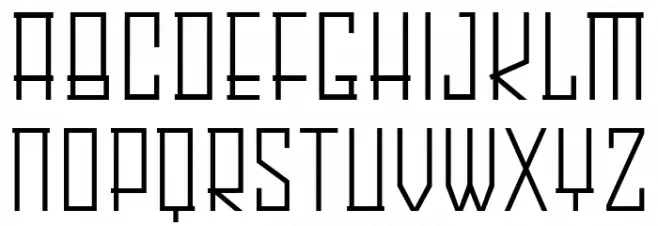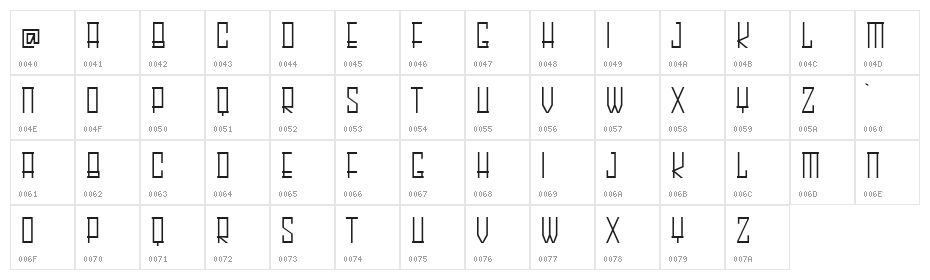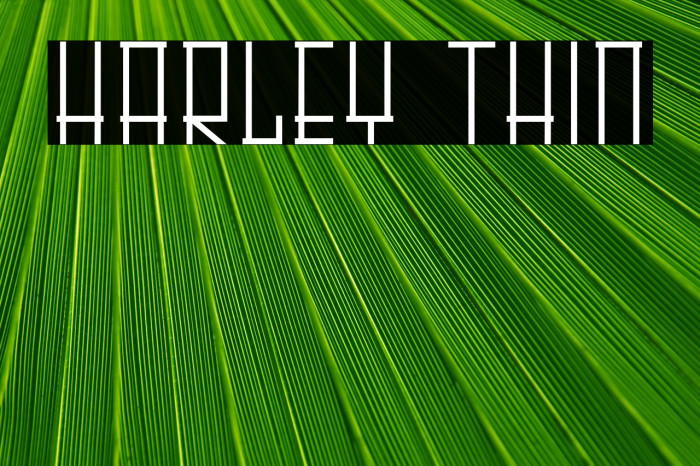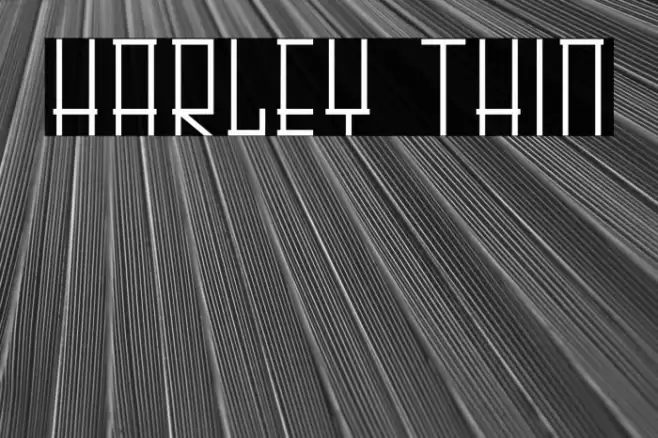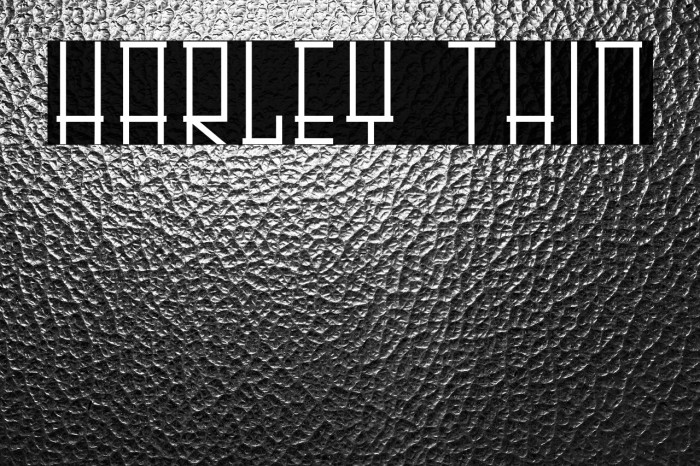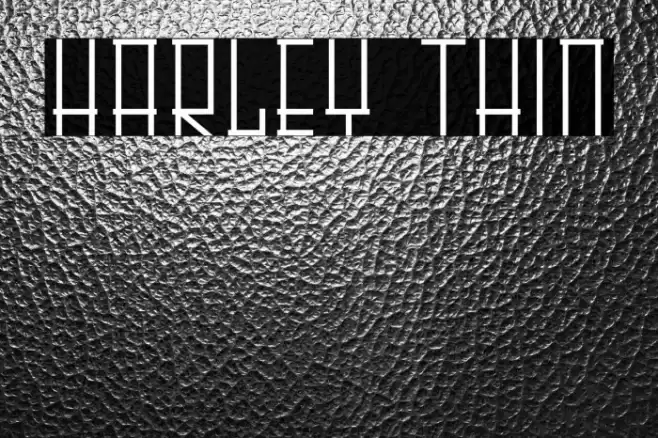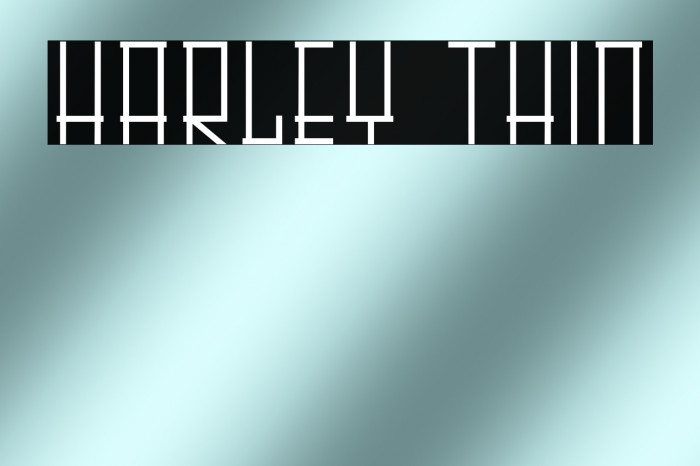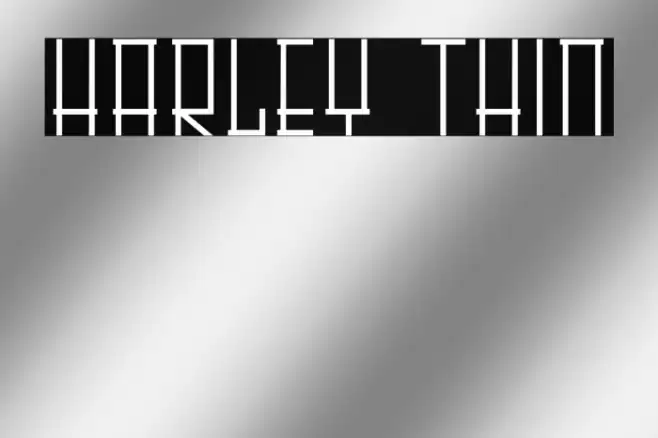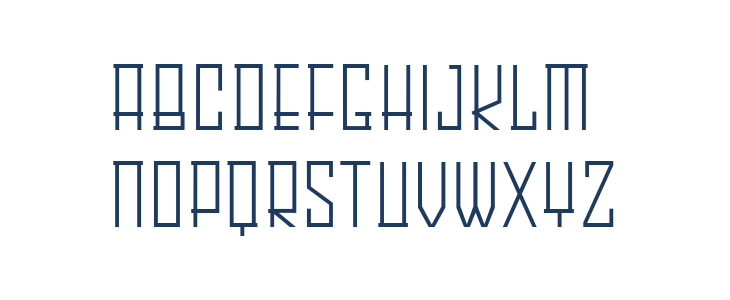
HARLEY Thin Font
HARLEY Thin Description
This font features a geometric and modern design with thin, uniform strokes. The characters are constructed with straight lines and sharp angles, giving it a structured and architectural appearance. The uppercase letters are tall and narrow, emphasizing verticality, while the lowercase letters maintain a consistent style with a slightly more compact form. The numerals and special characters follow the same design principles, ensuring a cohesive look across all glyphs. This font's minimalistic and clean aesthetic makes it suitable for contemporary design projects.